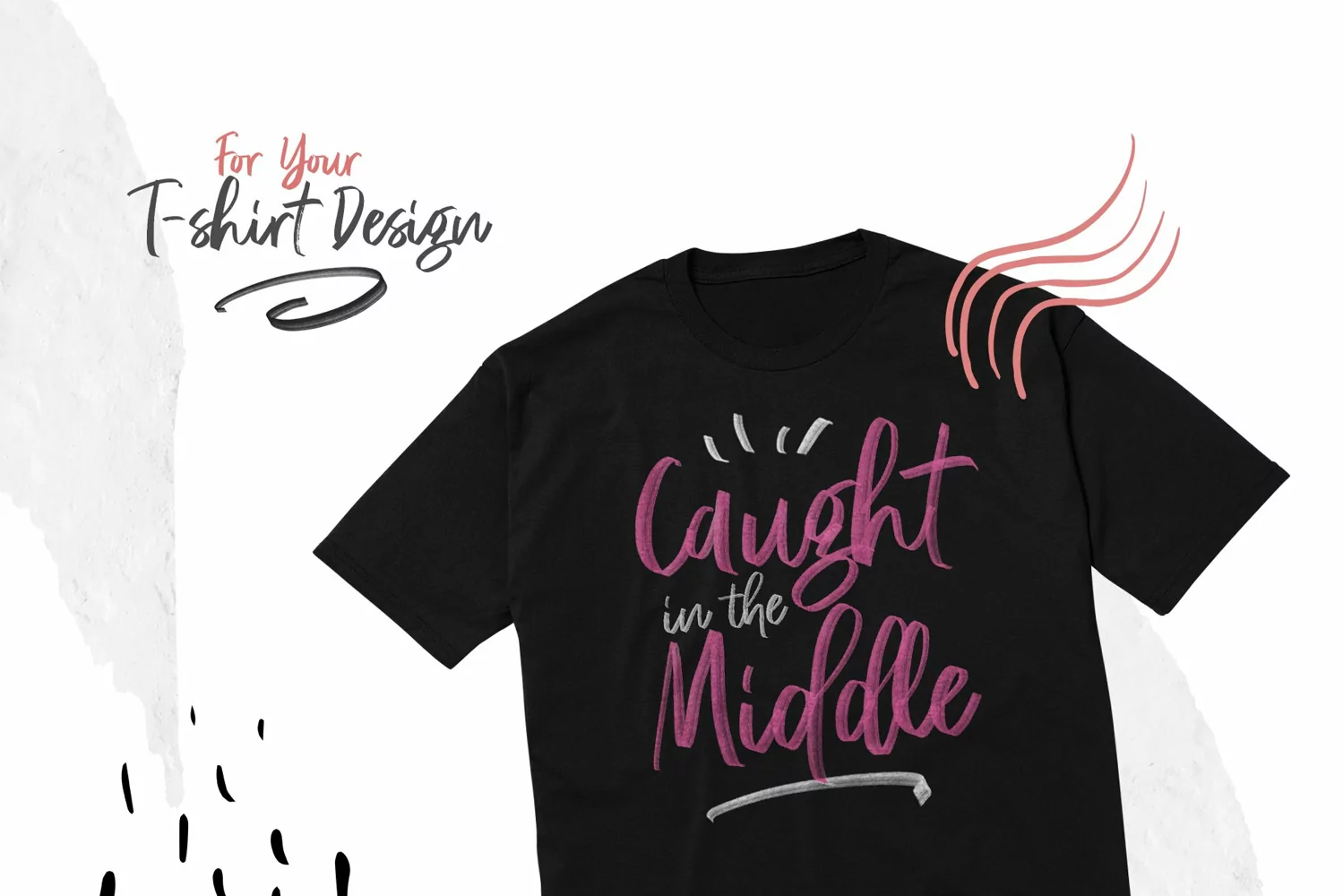
Rossie Kelly is handmade font that contains the newest font format, SVG and two another format. You can use these fonts for various purposes such as making realistic handwriting, for promotions, or other purposes that will make your design more real as handmade. This font also contain alternates to each characters, along with ligatures.